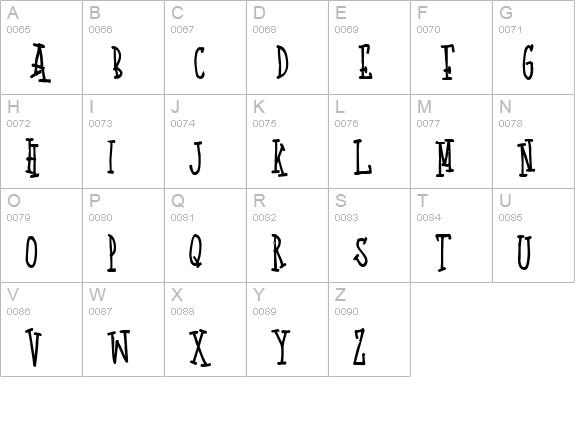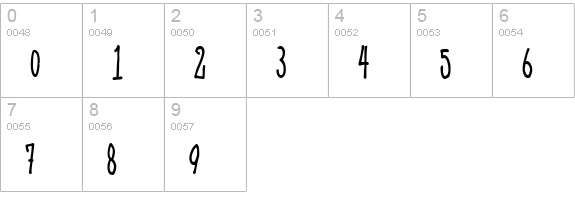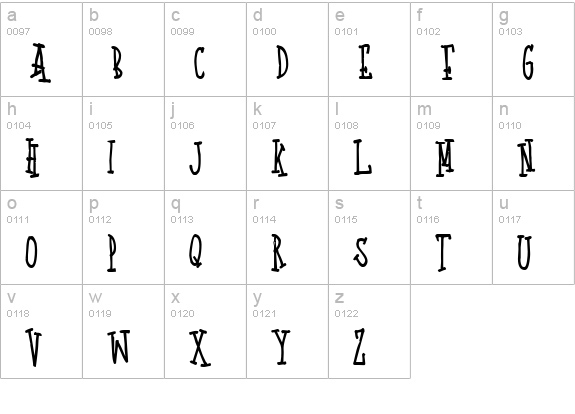
Quoted Positivity Font Details
Introducing Quoted Positivity, a font that exudes warmth, optimism, and a touch of playfulness. With its elegant yet friendly letterforms, this font is perfect for adding a cheerful and uplifting touch to your designs. Quoted Positivity is a typeface that is sure to bring a smile to your face. Its rounded edges and smooth curves create a sense of approachability and positivity, making it an ideal choice for a wide range of projects. Whether you're designing a motivational poster, a greeting card, or even a logo, this font will effortlessly convey a sense of joy and optimism. What sets Quoted Positivity apart is not only its delightful aesthetic, but also its accessibility. This font is freely available to download at FontsMarket.com, allowing you to bring a burst of positivity to your designs without any cost. Its availability means that designers of all levels can easily access this font and spread a little happiness through their creations. With Quoted Positivity, you can effortlessly infuse your designs with a sense of optimism and enthusiasm. Its versatile nature allows it to be used across various mediums, from digital platforms to print materials. Whether you're creating social media graphics, website banners, or even merchandise, this font will help you convey your message in an engaging and uplifting way. So why settle for ordinary when you can embrace the power of positivity with Quoted Positivity? Download this font for free at FontsMarket.com and unleash the endless possibilities of creating an atmosphere filled with joy, optimism, and inspiration. Let Quoted Positivity be your go-to font for spreading positivity and making a lasting impact with your designs.